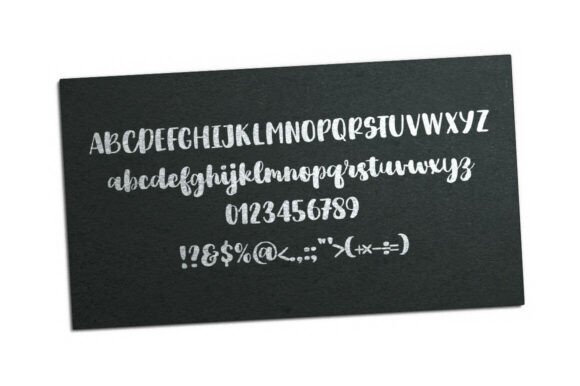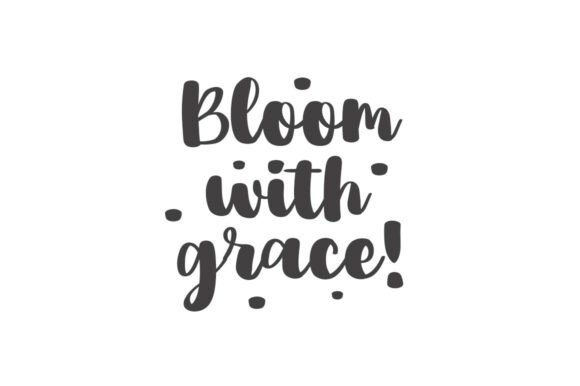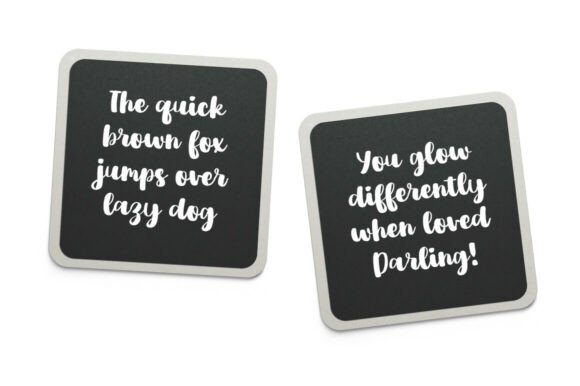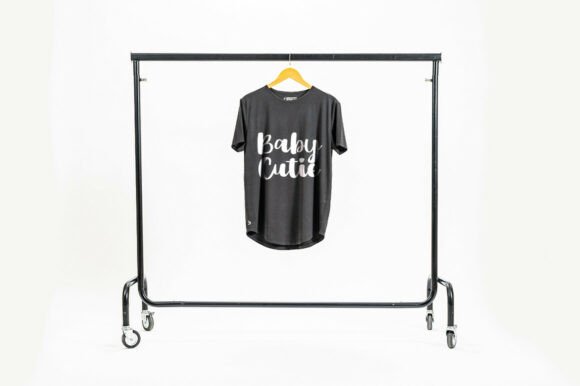
The Art of Elegant Design: Unleashing the California Script Font
Imagine yourself strolling along the sun-kissed beaches of California, feeling the gentle ocean breeze as you gaze out at the endless horizon. The sound of seagulls fills the air, and you can’t help but feel a sense of freedom and creativity wash over you. This is the perfect moment to tap into your inner designer and explore the beauty of the California Script Font.
This sophisticated, ink-textured handwritten script is a game-changer for designers looking to add a touch of modern urban elegance to their work. With its fluid, painterly strokes and watercolor-like transparency, the California Script Font is the perfect choice for high-end travel branding, lifestyle photography, logos, and chic editorial titles.
By incorporating the California Script Font into your designs, you can elevate your brand to a level of boutique luxury and creative sophistication. Its unique rhythm and artisanal texture provide a custom, hand-crafted look that’s sure to impress even the most discerning clients.
California Script Font Key Features
- Font Family: California Script Font
- Unique Characteristics: Handwritten, cursive, and script-like font with a modern and elegant feel
California Script Font Review
Overall, I found the California Script Font to be a visually appealing addition to any project. ✨ The font’s cursive design and flowing lines create a sense of elegance and sophistication. It’s perfect for branding, advertising, and other marketing materials where you want to convey a sense of luxury and high-end quality.
Some of the things that work well with this font include:
- ✨ Versatility: The California Script Font can be used in a variety of contexts, from formal to casual.
- ✨ Legibility: Despite its cursive design, the font is surprisingly easy to read, making it suitable for body text as well as headings.
- ✨ Emotional Connection: The font’s flowing lines and gentle curves evoke a sense of warmth and approachability, making it perfect for creating an emotional connection with your audience.
- ⚠️ Limited Font Sizes: The font’s elegance can be compromised at smaller font sizes, where the lines may become too thin and difficult to read.
- ⚠️ Limited Weight Options: The font is available in a limited range of weights, which may make it difficult to achieve the desired level of emphasis or contrast.
Overall, the California Script Font is a beautiful addition to any project, but it’s essential to use it judiciously and consider its limitations.
Getting the Most Out of the California Script Font
To get the most out of the California Script Font, use it for:
- Branding and logos for creative businesses
- Special event signage and decorations
Remember to pair the California Script Font with a clean and simple sans-serif font to create a visually appealing contrast.
The California Script Font is commonly used for:
- Wedding and event invitations
- Personalized gifts